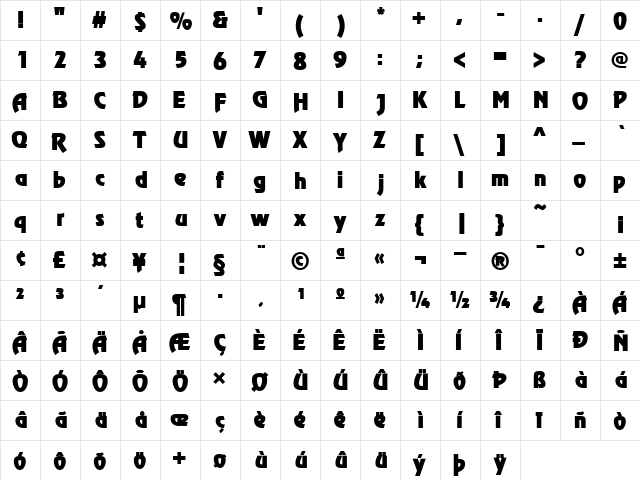
BrouhaSSK Bold
Design Context for BrouhaSSK Typeface
BrouhaSSK is a composed and adaptable typeface that performs quietly and consistently across a wide range of design contexts. Its bold stroke weight gives it real presence on the page.